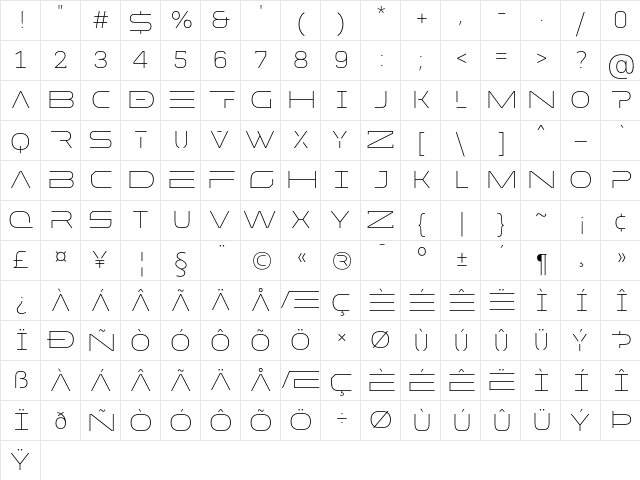
MADE Future X HEADER Thin
| Foundry | MadeType |
| Designer | MadeType |
Design Context for MADE Future X HEADER Typeface
MADE Future X HEADER has a distinctly futuristic character, with geometric precision and clean angles that feel at home in technology, gaming, and sci-fi contexts. Its slender proportions lend an understated elegance to any composition.
Pro Tip: Use MADE Future X HEADER in combination with a neutral sans for body text. Let it define the brand voice in headlines while keeping reading comfortable elsewhere.